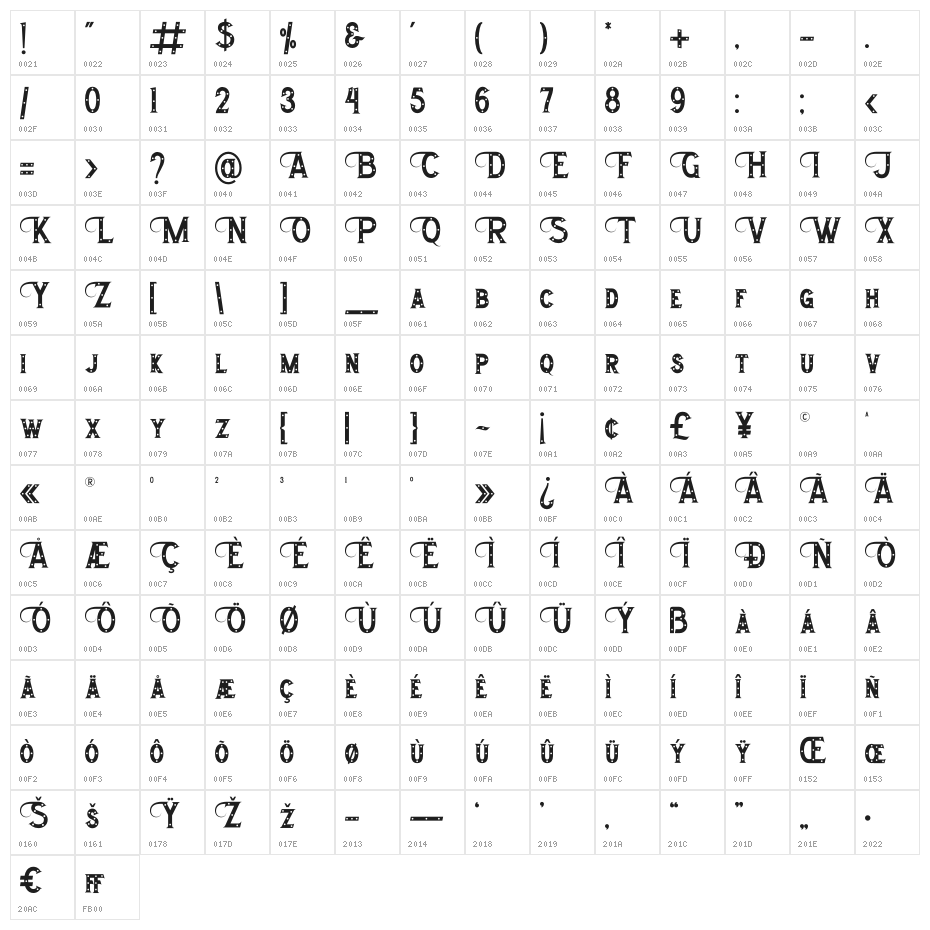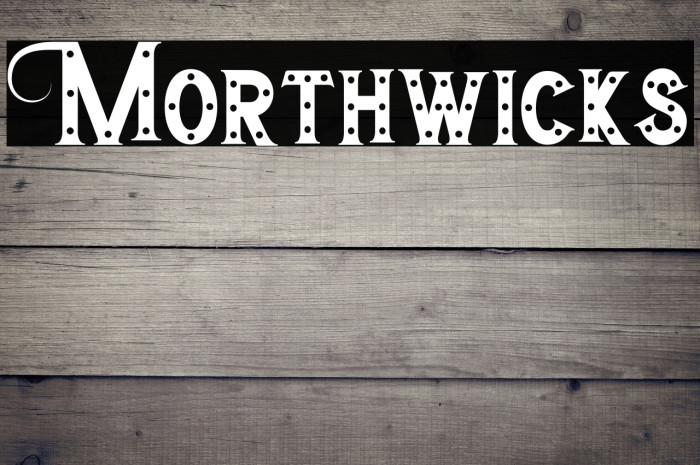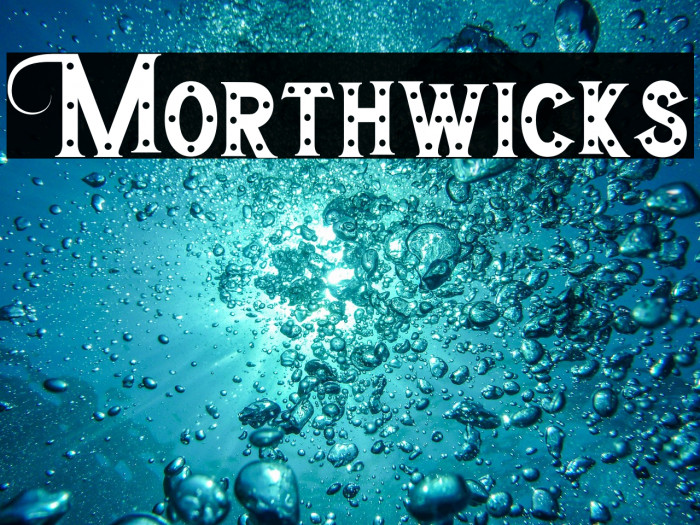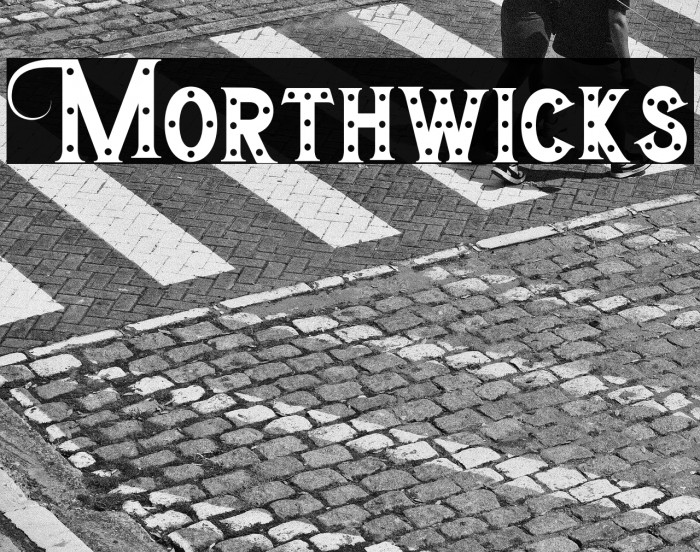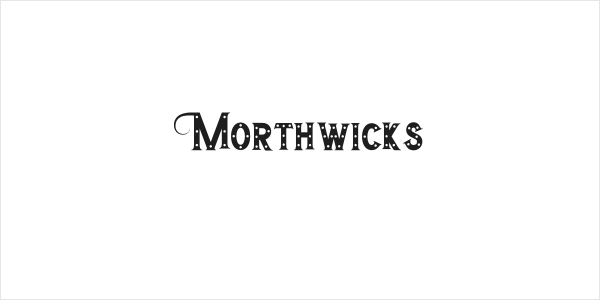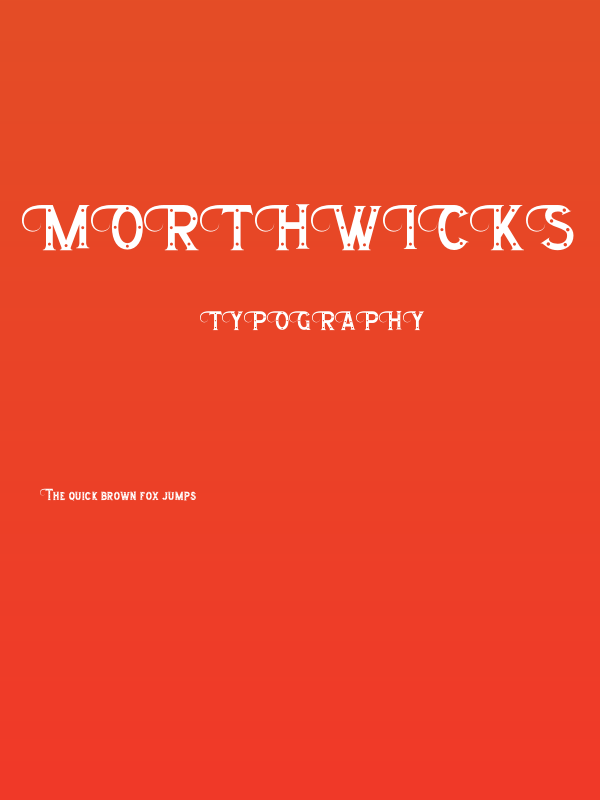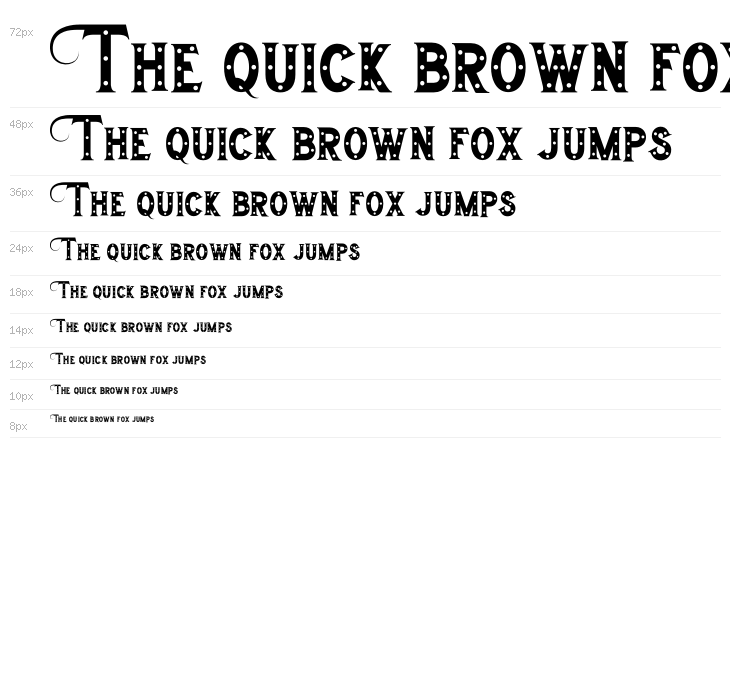
Morthwicks Font
Morthwicks Description
This font features a bold and decorative style with a unique dotted pattern within each character. The uppercase letters are distinct and eye-catching, making them ideal for attention-grabbing designs. The numbers and special characters maintain the same boldness and decorative elements, ensuring consistency throughout. The font's playful and whimsical nature makes it suitable for creative projects that require a touch of fun and flair.
| Proposed Projects | Ideal for poster designs, event invitations, children's book covers, and playful branding. |